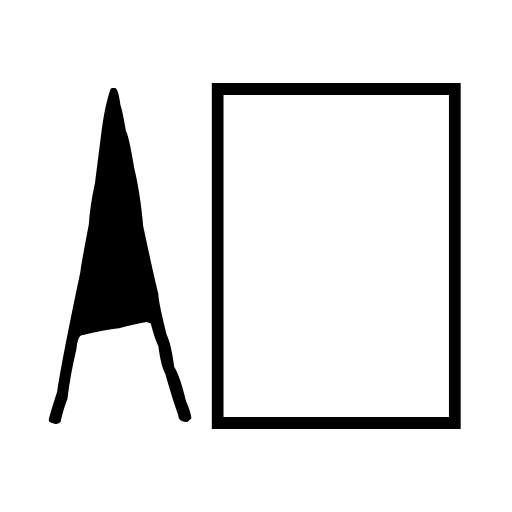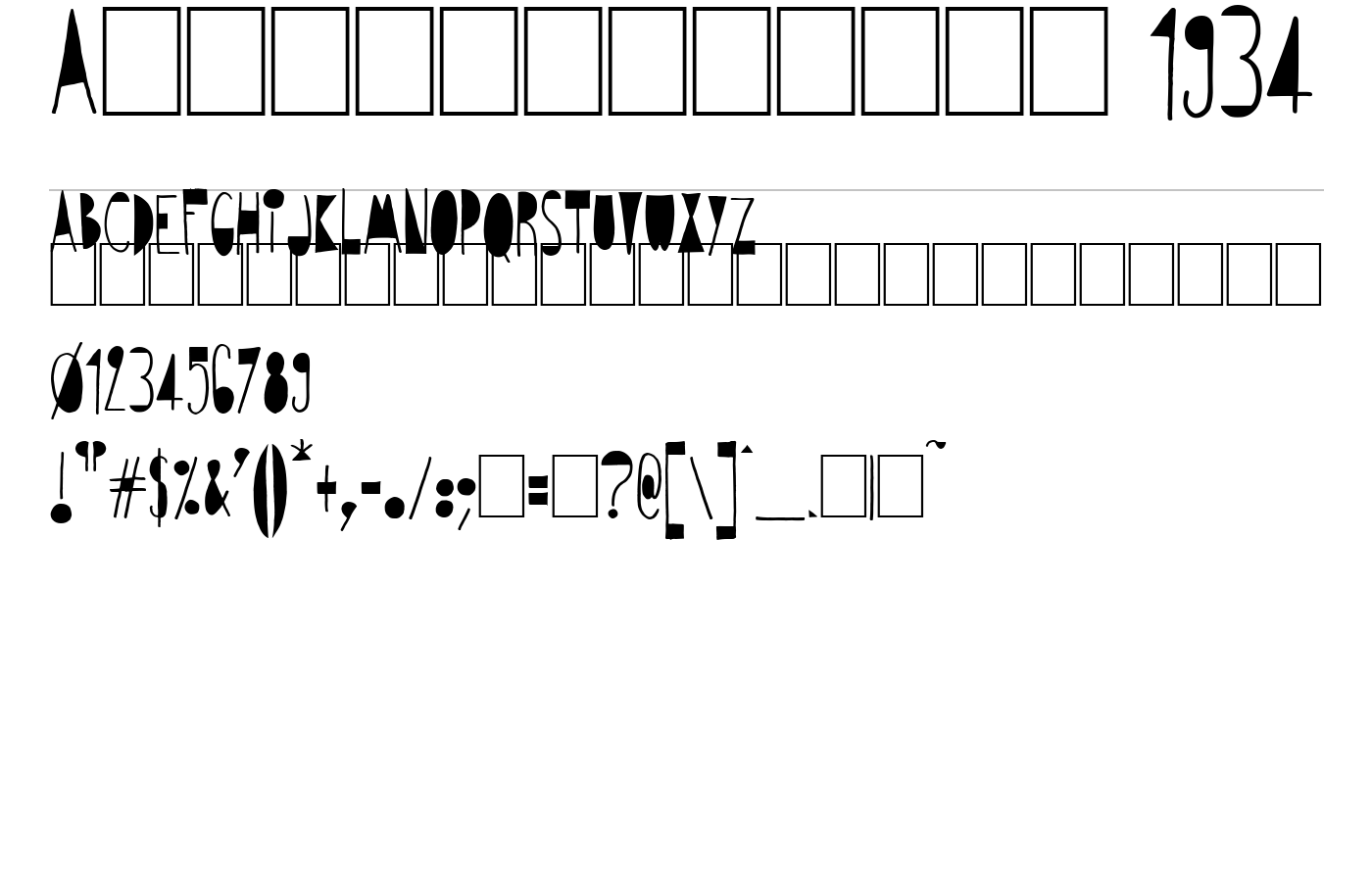
Avantgardiste 1934 is a highly stylized sans serif font with an artistic, avant-garde flair that reflects a vintage yet playful spirit. Its narrow, elongated letterforms feature a mix of thick and thin strokes with quirky, almost hand-drawn shapes, giving it a unique, expressive personality suited for bold headlines, creative logos, and editorial designs seeking a distinctive, retro-modern vibe. This font works best where individuality and artistic impact are desired, making it perfect for fashion, art, and cultural branding that embraces originality.
Avantgardiste 1934 Font
About Avantgardiste 1934 Font
| Font family | Avantgardiste 1934 Font |
| Designer | imagex |